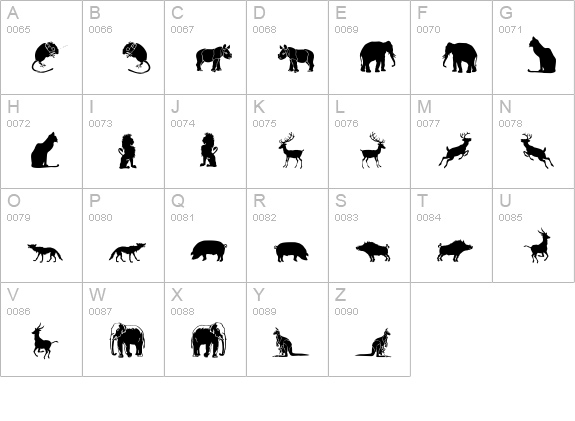
lpwildlife1 Font Details
Introducing lpwildlife1 font, a captivating and whimsical typeface that brings a touch of nature and adventure to your design projects. With its playful and organic aesthetic, lpwildlife1 is perfect for adding a unique and eye-catching element to your creations. This versatile font offers a wide range of characters and ligatures, allowing you to unleash your creativity and personalize your designs with ease. Whether you're working on a branding project, a poster, a website, or any other design endeavor, lpwildlife1 is sure to stand out and make a lasting impression. Best of all, lpwildlife1 is completely free to download at FontsMarket.com. So go ahead and add this charming font to your collection today and let your creativity run wild with lpwildlife1!